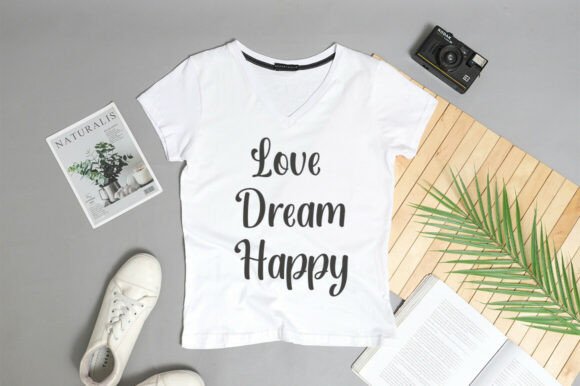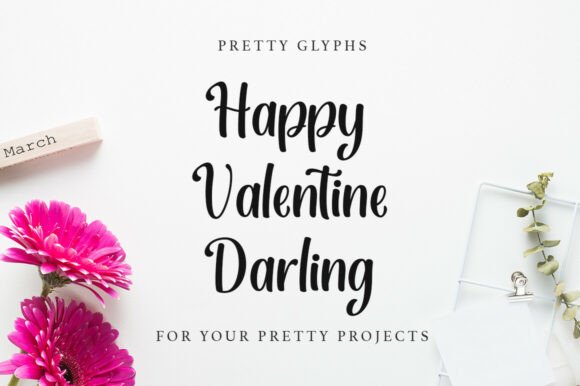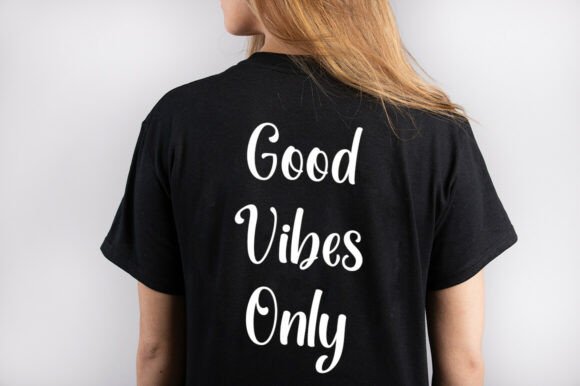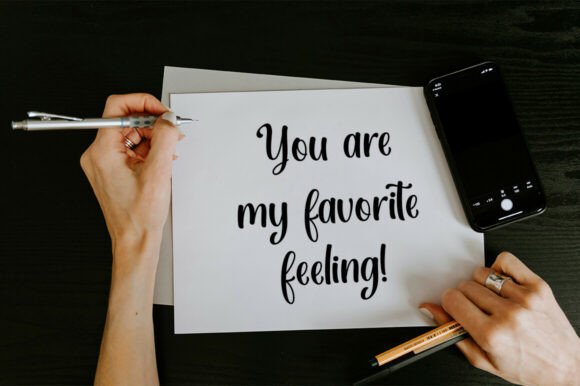
Introducing Handsome Font: Elevate Your Design with Bold, Expressive, and Effortlessly Stylish Typography
Are you tired of using the same old fonts that lack personality and flair? Look no further than Handsome Font, a stunning handwritten brush font that is crafted to feel bold, expressive, and effortlessly stylish. Inspired by real brush lettering, each character features natural strokes, dynamic movement, and a handcrafted texture that instantly elevates any design.
The Inspiration Behind Handsome Font
Handsome Font is inspired by the art of traditional brush lettering, where every stroke and movement is unique and expressive. The font’s creator aimed to capture the essence of this art form and bring it to digital design. The result is a font that exudes confidence, creativity, and a sense of freedom.
Key Features of Handsome Font
- Natural Strokes: Each character features natural, fluid strokes that mimic the movement of a brush. This gives the font a dynamic and expressive feel that is perfect for designs that require a personal touch.
- Dynamic Movement: The font’s characters are designed to convey a sense of movement and energy. This makes it ideal for designs that require a sense of action and excitement.
- Handcrafted Texture: The font features a unique, handcrafted texture that gives it a tactile, organic feel. This texture adds depth and character to any design, making it stand out from the crowd.
- Perfect Balance: Handsome Font strikes the perfect balance between casual freedom and modern aesthetics. This makes it suitable for a wide range of design applications, from branding and advertising to social media and packaging.
Who is Handsome Font for?
Handsome Font is designed for creatives who want to add a touch of personality and authenticity to their designs. Whether you’re a graphic designer, a crafty DIY enthusiast, or a social media influencer, this font is perfect for anyone who wants to make a statement.
Use Cases for Handsome Font
- Branding: Use Handsome Font to create a bold and memorable brand identity that stands out from the competition.
- Social Media: Add a touch of personality to your social media posts and stories with this eye-catching font.
- Packaging: Use Handsome Font to create eye-catching packaging designs that reflect your brand’s personality.
- Advertising: Make your ads stand out with this bold and expressive font that demands attention.
Why Choose Handsome Font?
There are many fonts available that claim to be bold and expressive, but Handsome Font stands out from the crowd. Here are just a few reasons why:
- Unique Character: Handsome Font has a unique character that is unmatched by other fonts. Its natural strokes, dynamic movement, and handcrafted texture make it a true standout.
- Versatility: This font is suitable for a wide range of design applications, from digital design to print materials.
Handsome Font is a powerful, eye-catching, and full-of-creative-energy font that is perfect for designers and crafters who want to add a touch of personality and authenticity to their designs. With its natural strokes, dynamic movement, and handcrafted texture, this font is sure to elevate any design and make it unforgettable. So why wait? Try Handsome Font today and take your designs to the next level!